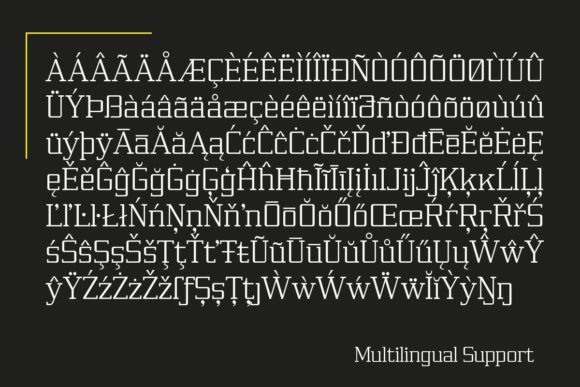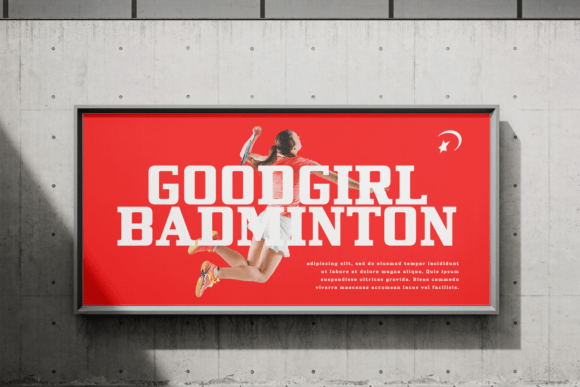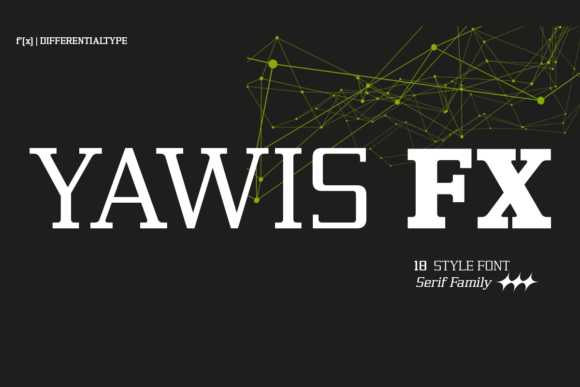
Yawis Fx Font Family
Yawis Fx Font Family an exquisitely crafted serif font family imbued with the pulse of modern aesthetic. Skillfully designed for adaptability, Yawis FX gracefully harmonizes with diverse design milieu – from sumptuous packaging to captivating branding, dynamic gaming interfaces to sophisticated applications, compelling news headers to striking editorial design. Orchestrated with a suite of 18 versatile styles, Yawis FX is your tool to explore uncharted territories in the panorama of the visual language. Incorporate Yawis FX into your creations and watch as it transforms them into visually arresting works of art.